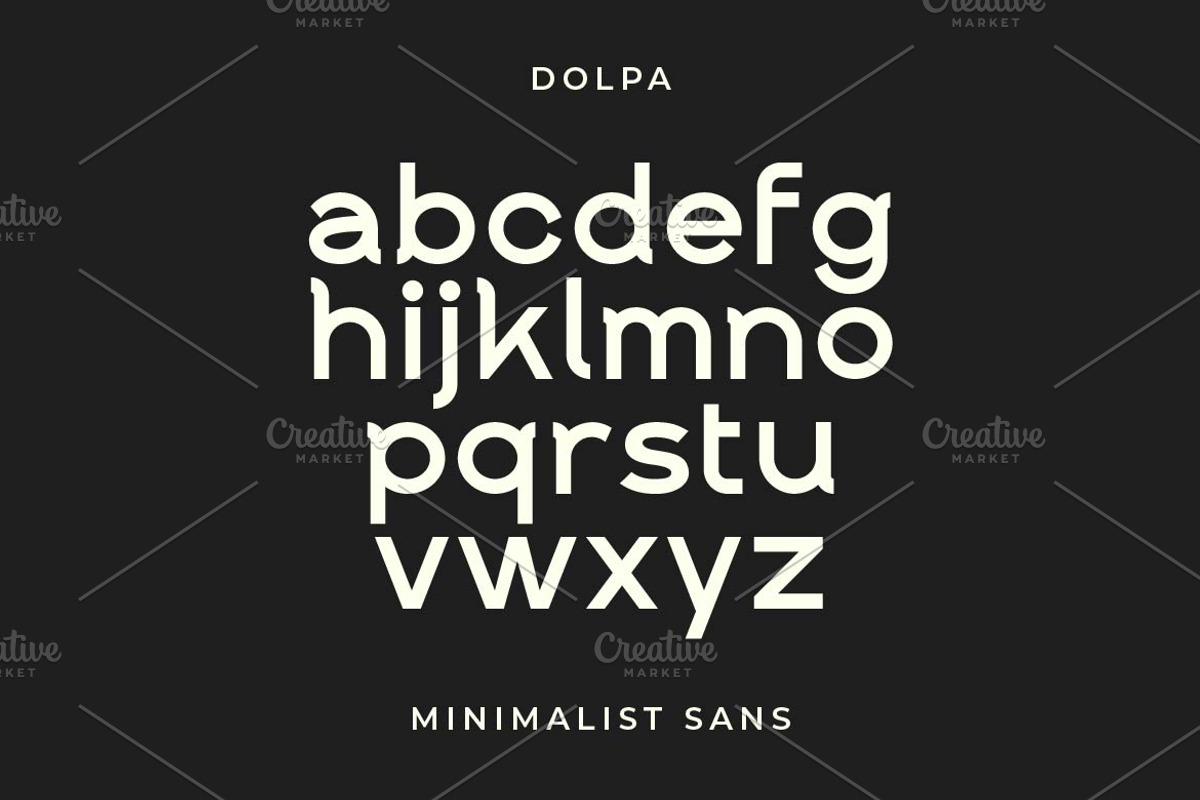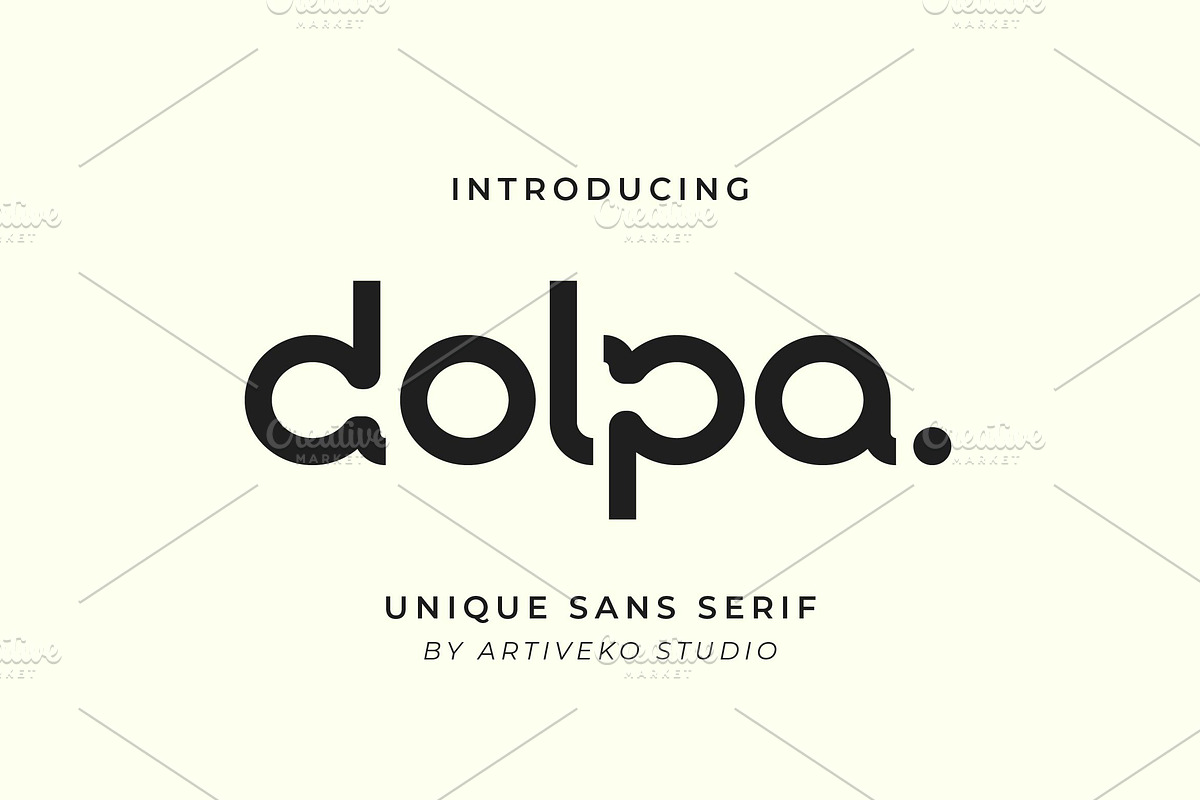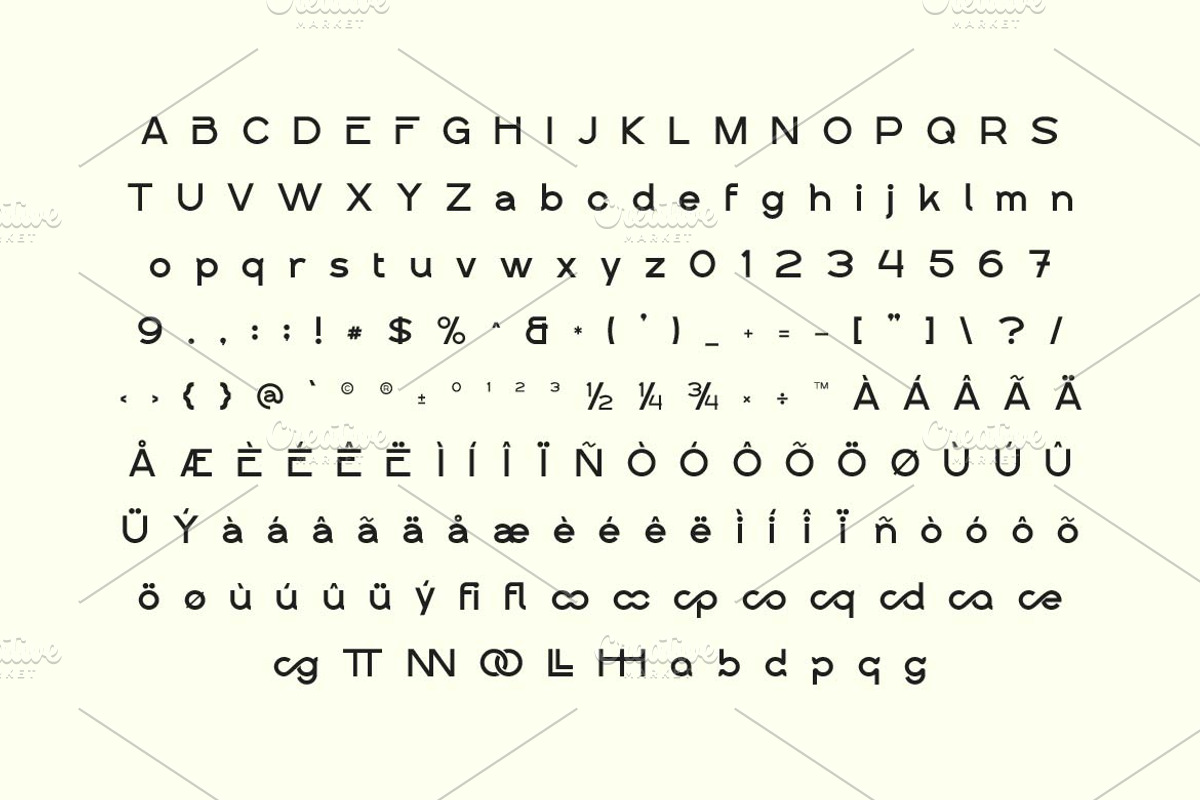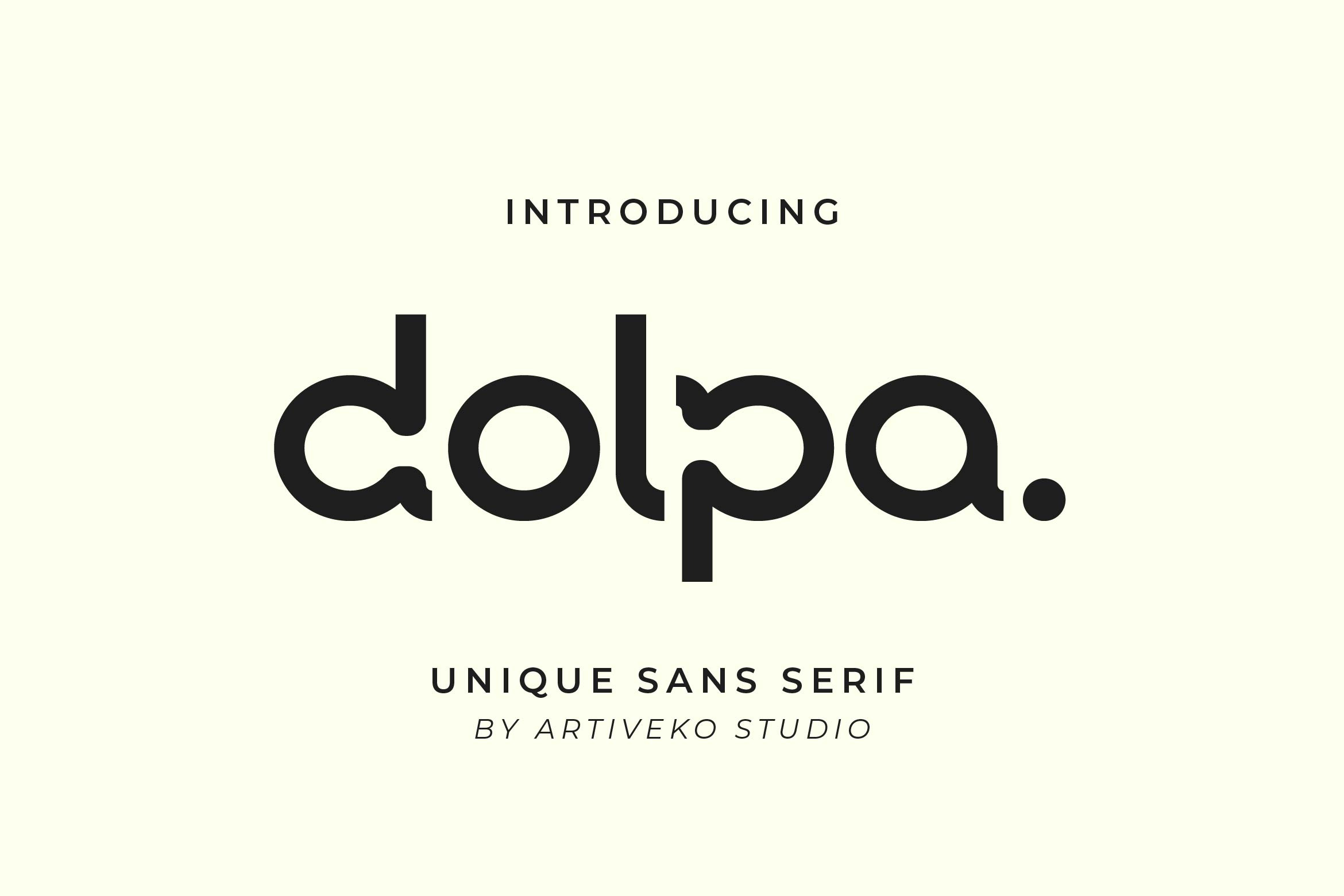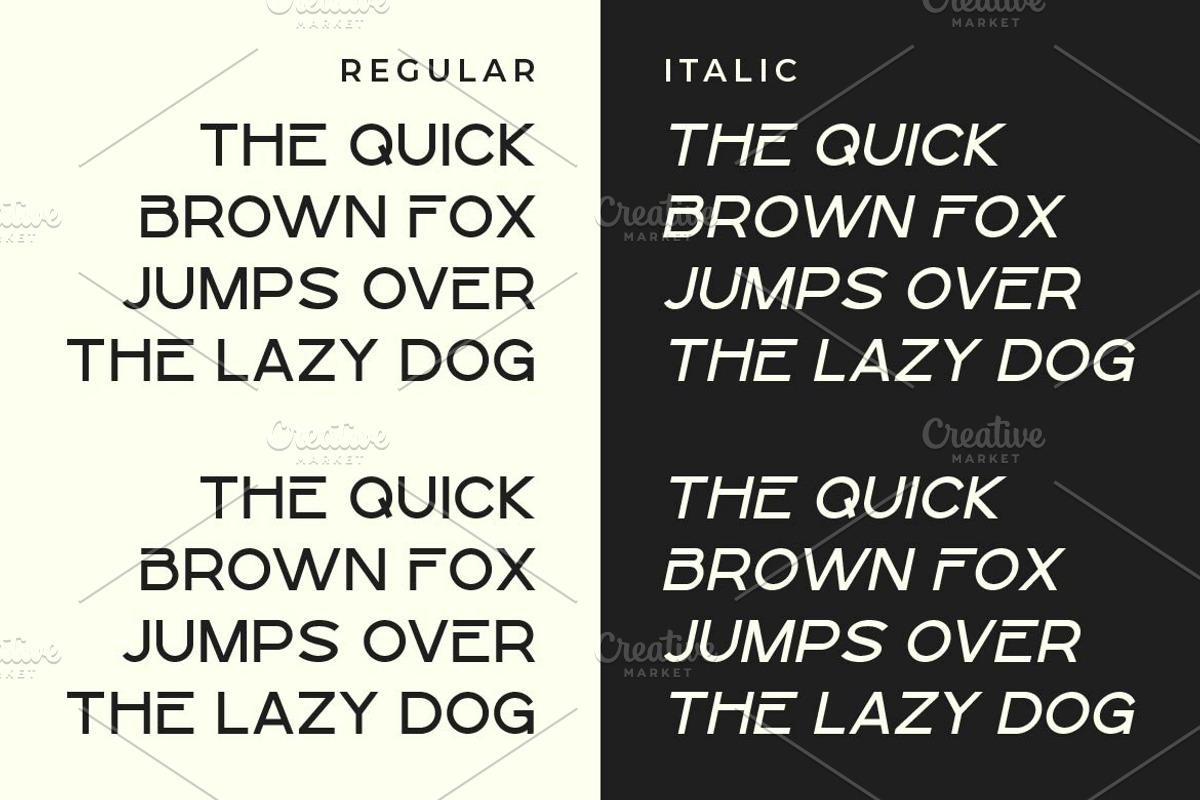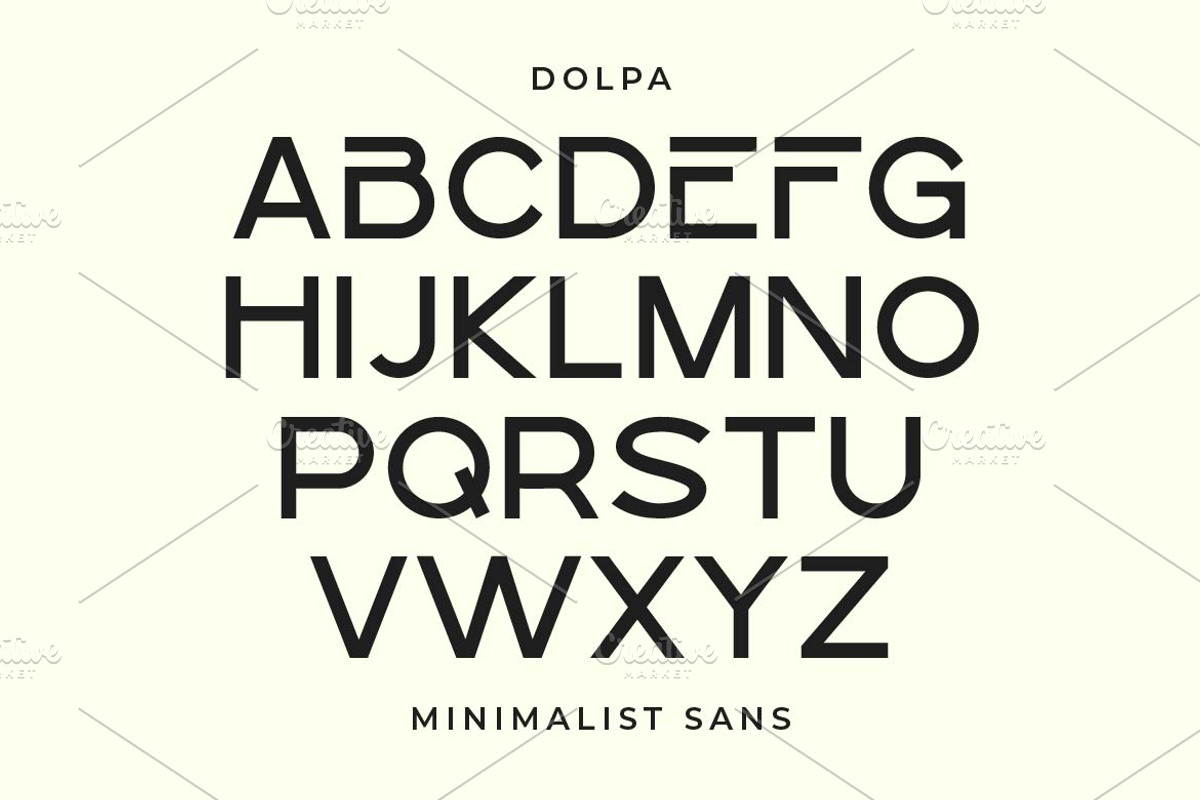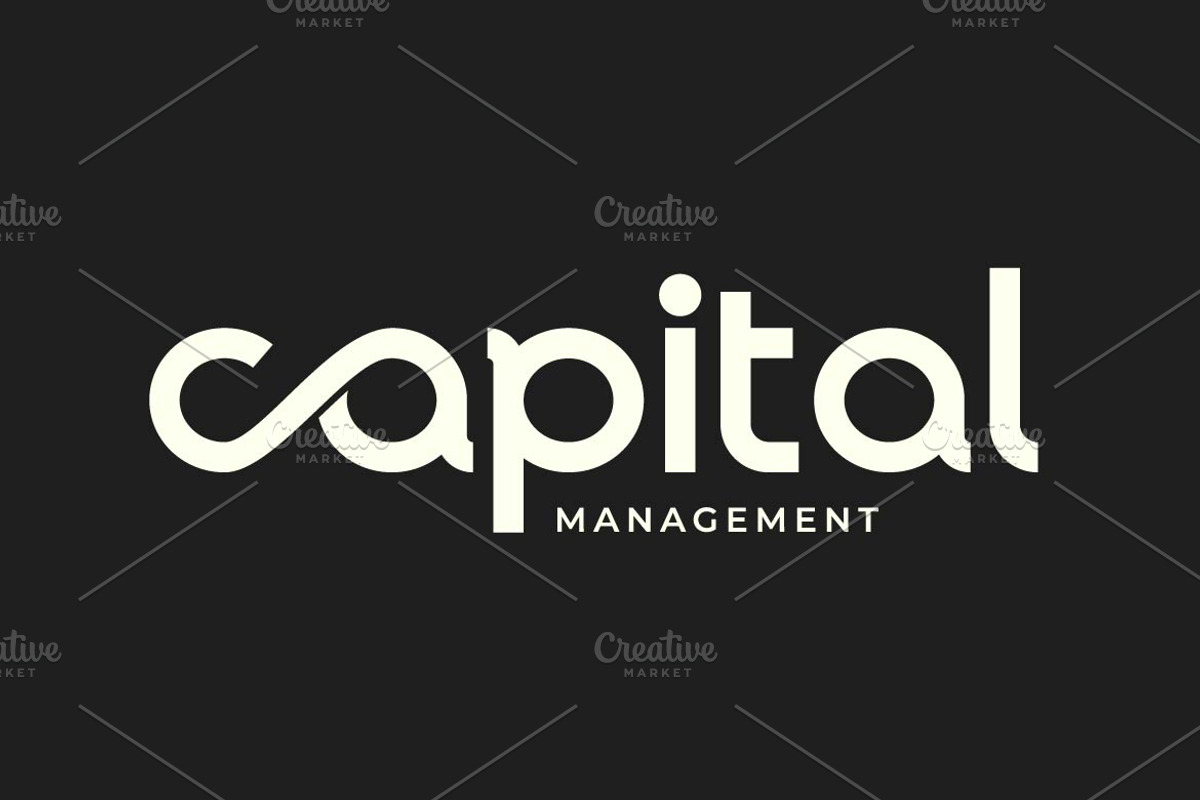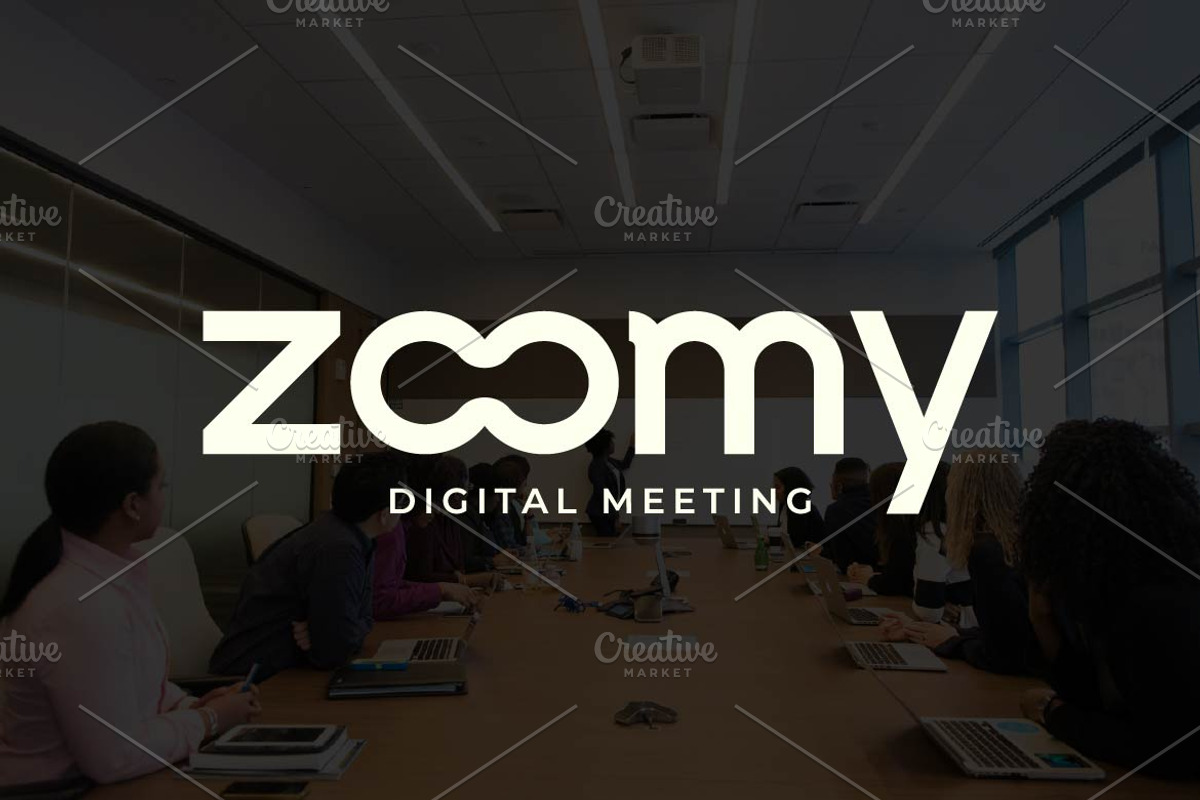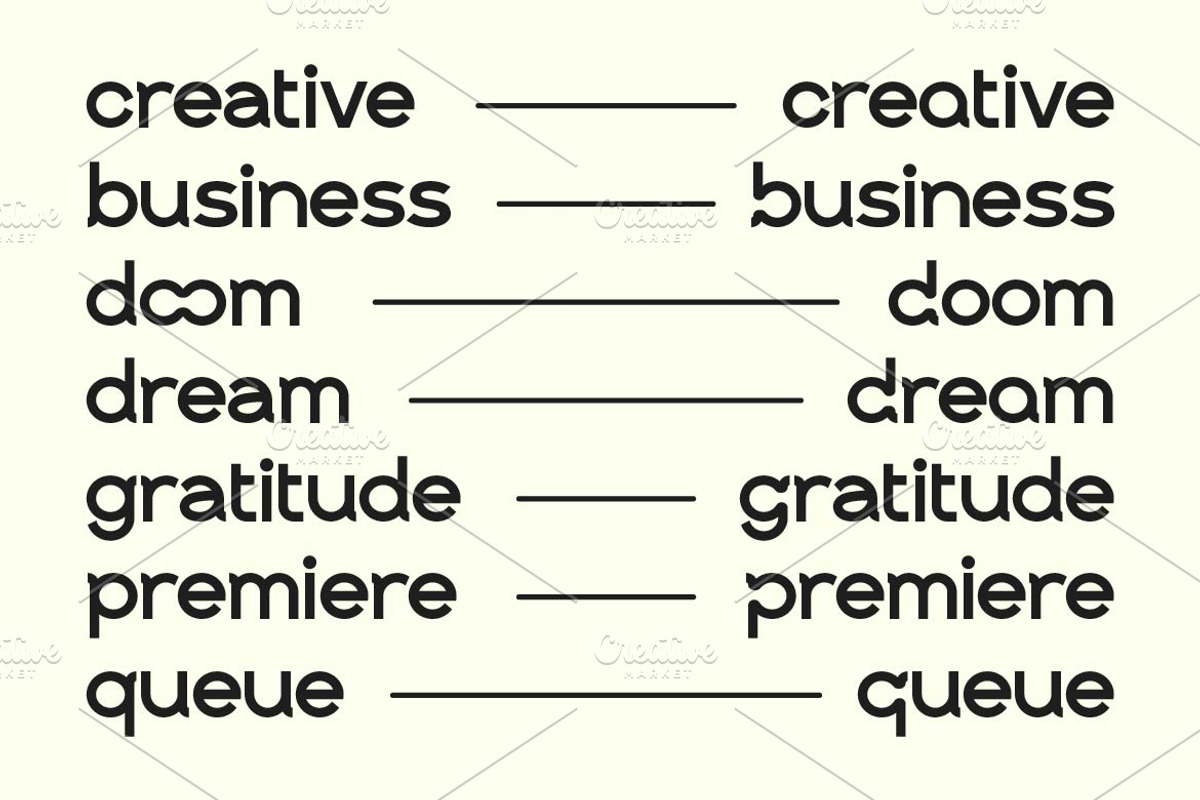
Dolpa Elegant Sans Logo Font
Dolpa is a modern elegant sans serif font designed to bring sophistication and clarity into every project. With its clean structure, smooth curves, and refined proportions, Dolpa offers a timeless look that fits both contemporary and classic branding.